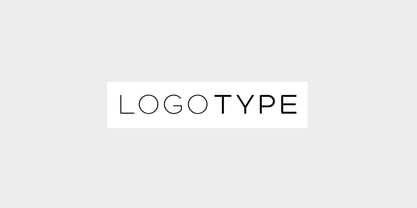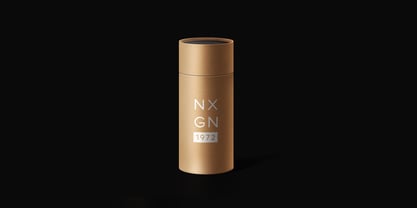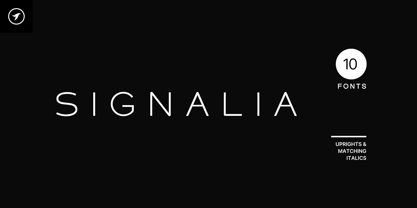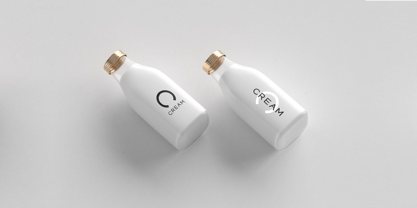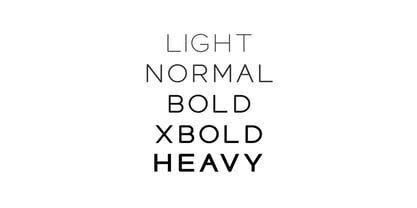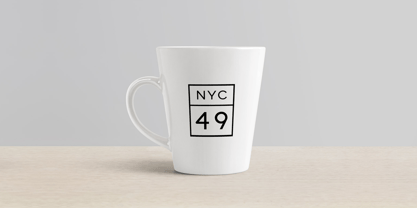
Signalia
by Designova
The Signalia Font Family was designed by Jean Johnson and published by Designova. Signalia contains 10 styles and family package options.
SIGNALIA is a new-age typeface for headlines, big text, branding, logotypes & display usage. This all-caps typeface is perfect for creating outstanding logos, promotional content and marketing graphics that can really grab attention from your visitors. Please see the examples shown above to get an idea about the capability of this typeface.